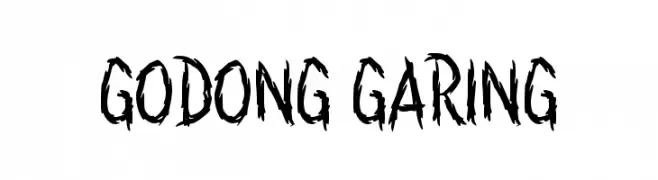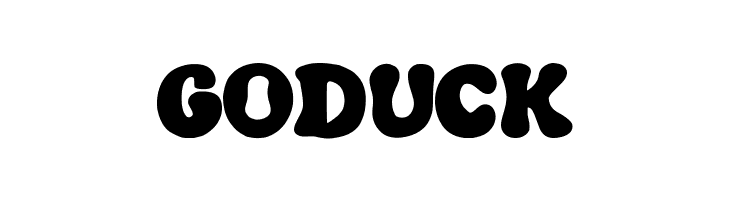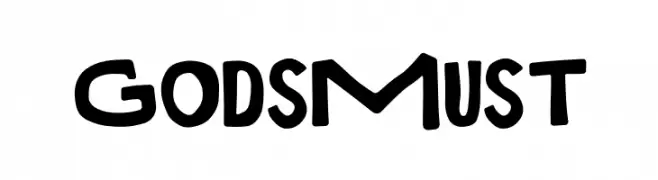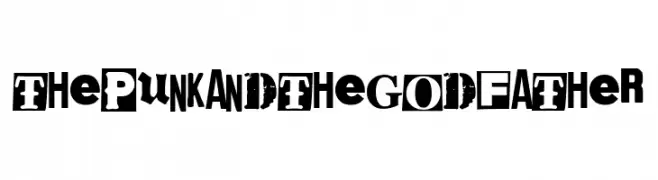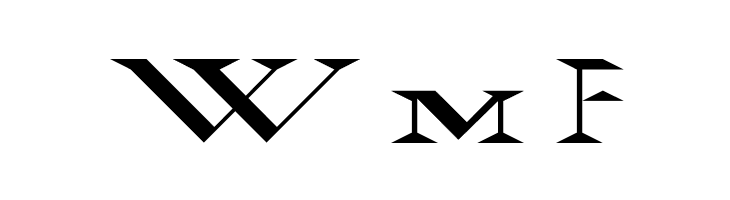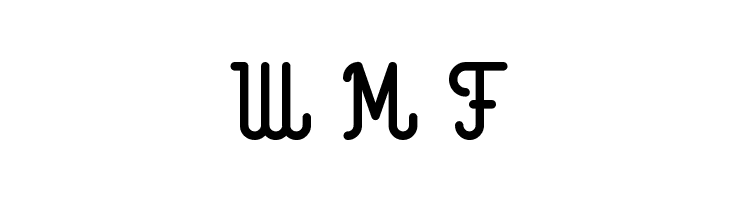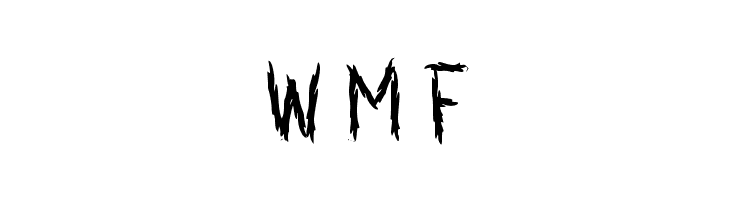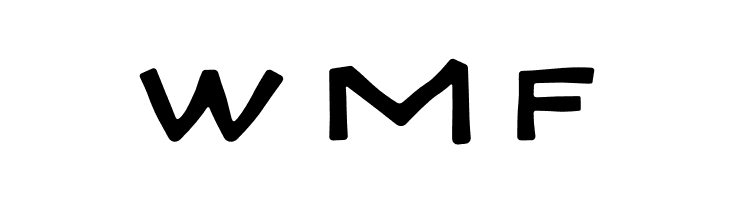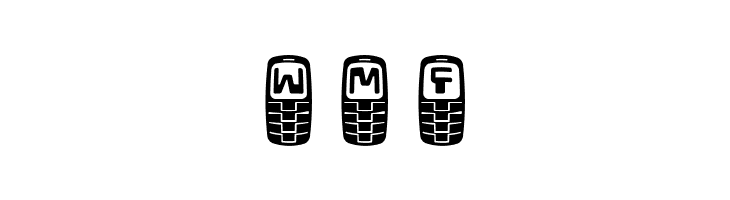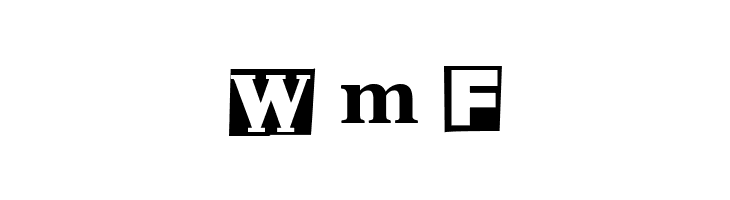
• Fadgod-Regular
A bold, geometric font with sharp angles and a futuristic style.
• Godlike
A playful, interconnected script-style font with bold, rounded characters.
• GODONG GARING
A bold, distressed font with jagged edges and a hand-drawn style.
• Gods Must
A playful, bold, hand-drawn style font with a casual and informal feel.
• Hola Mota Ergodynamic Bold
A bold, geometric font with a futuristic and edgy design.
• Hola Mota Ergodynamic 2
A bold, geometric font with a futuristic, digital aesthetic.
• Hola Mota Ergodynamic
A bold, futuristic font with characters in rounded rectangles, inspired by mobile keypads.
• The Punk And The Godfather
A bold, eclectic display font with a punk and retro vibe.
• GODUCK
A playful, bold font with rounded, bubble-like characters.
• Gothic Godness
A bold, Gothic-style font with intricate details and high contrast, perfect for dramatic and historical themes.